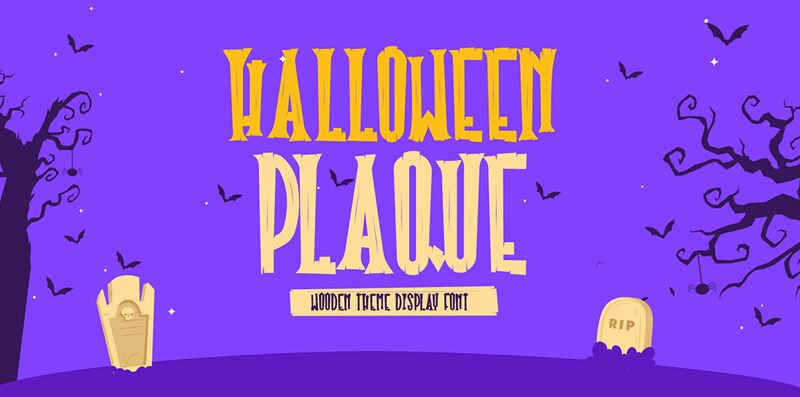
Si Panji's "Halloween Plaque" is a semi-light, extra-condensed display font with a spooky twist. This holiday font captures the essence of Halloween with its wood-like texture and vintage appeal.
Perfect for creating Halloween signs, decorations, or invitations, "Halloween Plaque" adds a mysterious touch to any project aiming to highlight the eerie ambiance of this beloved holiday. Whether you're designing haunted house flyers, party invitations or even themed merchandise, this font will infuse your creations with an authentic Halloween vibe that is sure to captivate and enchant your audience.
Give your designs a touch of vintage charm and embrace the spirit of Halloween with "Halloween Plaque".